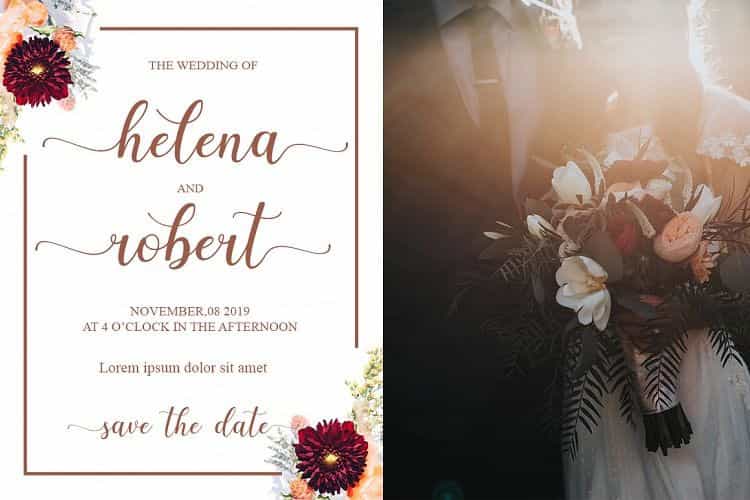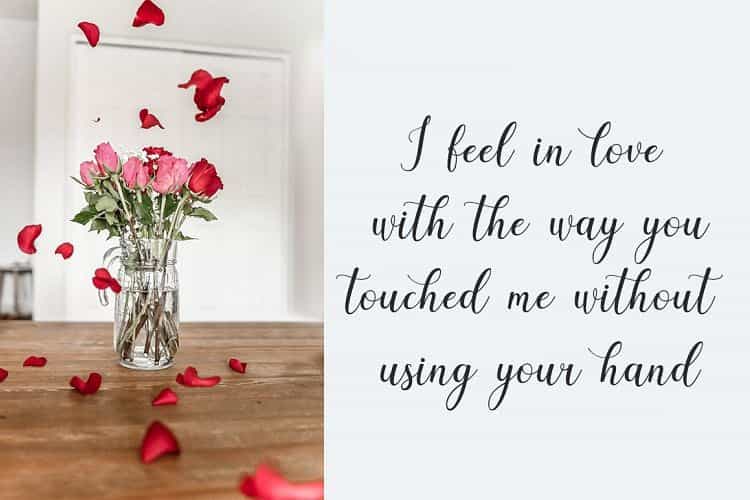
Dellisa Font is a new fresh font in the handwritten calligraphy style script font category. It is ideal for use on greeting cards, branding, business cards, quotations, posters, and any other creative project! These font are good for the wedding postcard Or you can order perfect and individual design for your logo, blog, letterhead, marketing, magazines and much more.